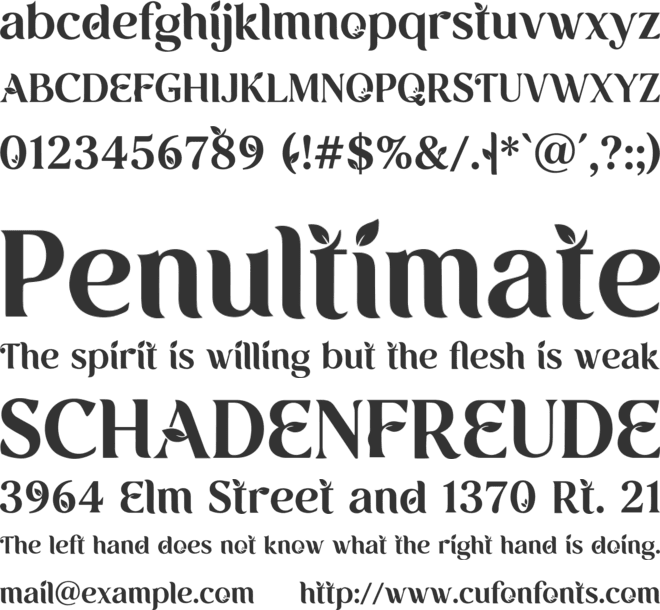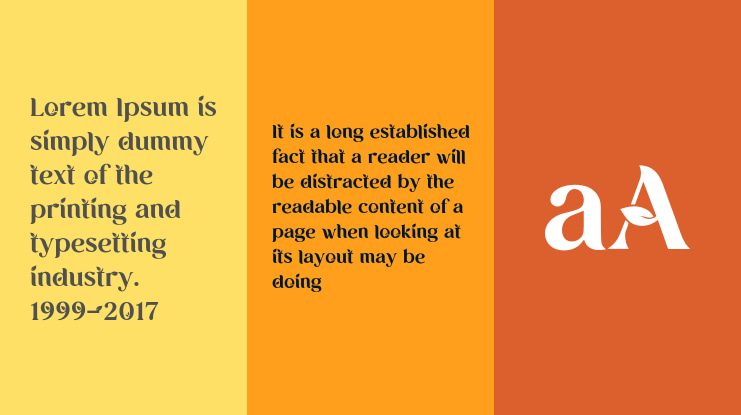
Ekainos Font: Nature-Inspired Botanical Serif for Modern Brands
Some typefaces are designed. Ekainos feels like it grew.
This bold, high-contrast serif display font pairs sturdy uppercase letterforms with soft, slightly rounded lowercase shapes β and threaded through both is a collection of delicate hand-drawn leaf and vine flourishes. A sprout curling off a "K." A vine wrapped gently around a "G." A tiny loop finishing the tail of a lowercase "g." These aren't extra decorations dropped in for show β they're built into the letters themselves, so the botanical character shows up naturally, whether you're setting a single word or a full paragraph.
Ekainos was made with a specific world in mind: a small greenhouse at the edge of a garden, glass fogged from the warmth inside, shelves lined with terracotta pots and hand-labeled seed packets. It's the label on a jar of herbal tea. The sign above a flower stall. The cover of a garden journal filled with pressed leaves.
As a botanical font, it works beautifully for herbal wellness branding, cold-pressed juice and tea packaging, florists and garden centers, sustainability and "save the earth" campaigns, and cottagecore-inspired stationery. It's structured enough to anchor a logo, and warm enough to feel personal on a product label.
If your brand story involves soil, seeds, sunlight, or slow living, Ekainos already speaks that language. Bring it into your next project and let your typography grow with your brand. π±π